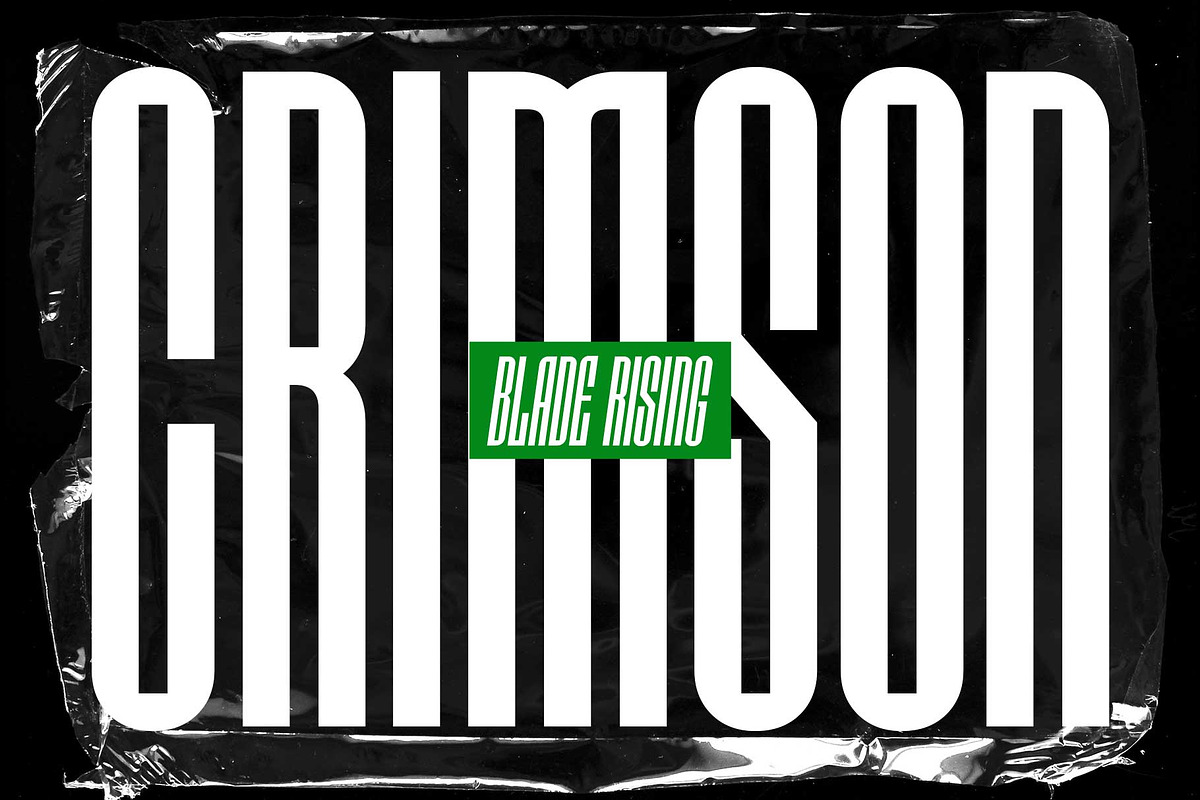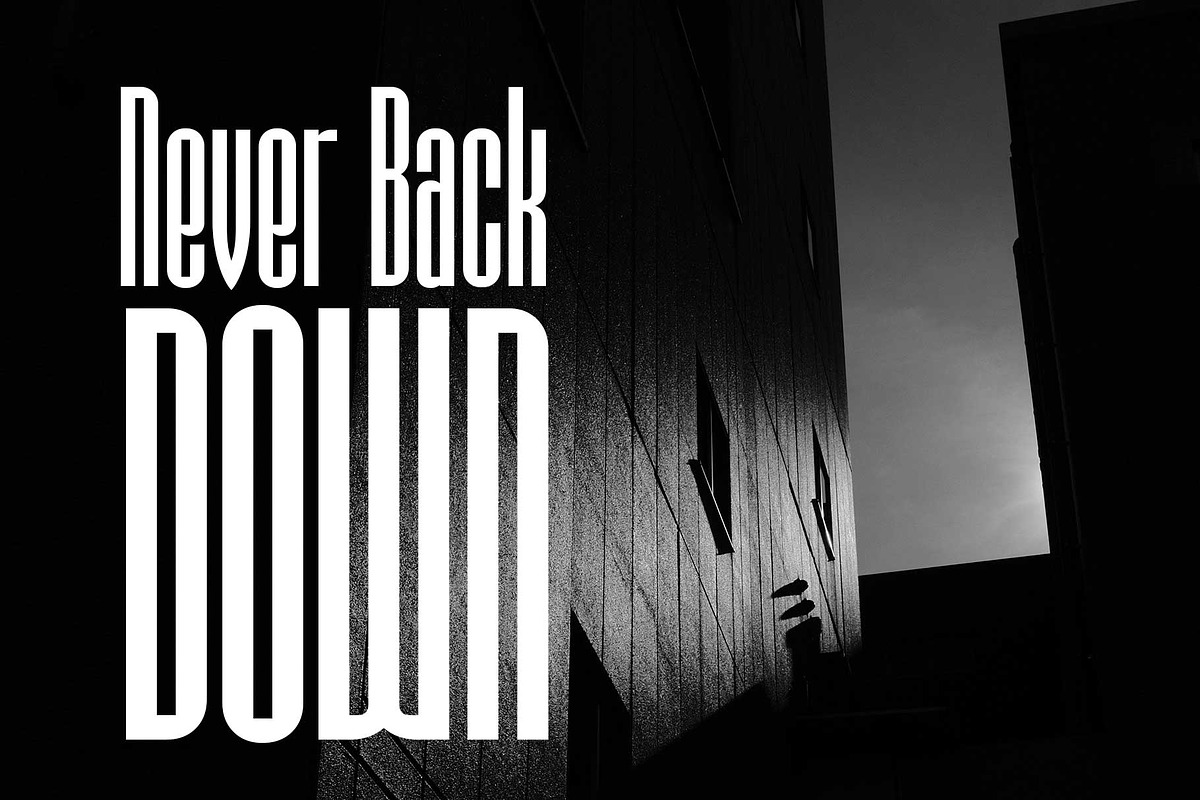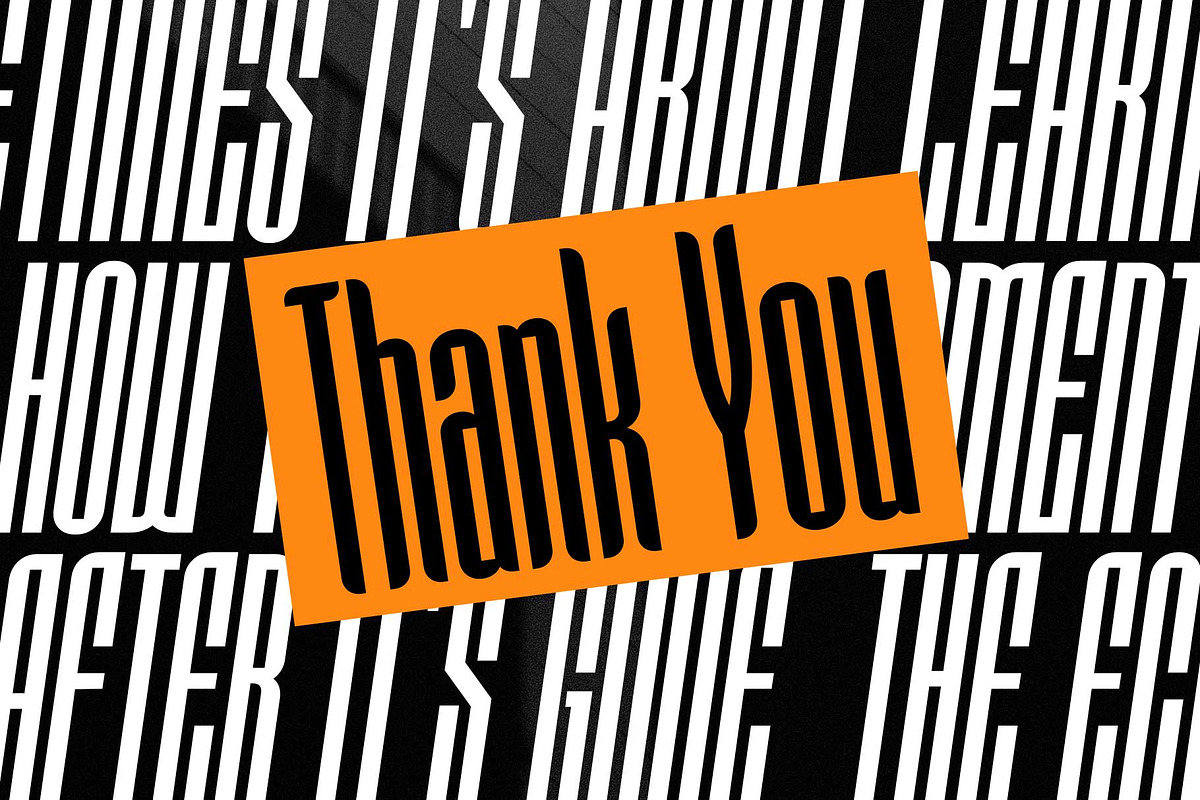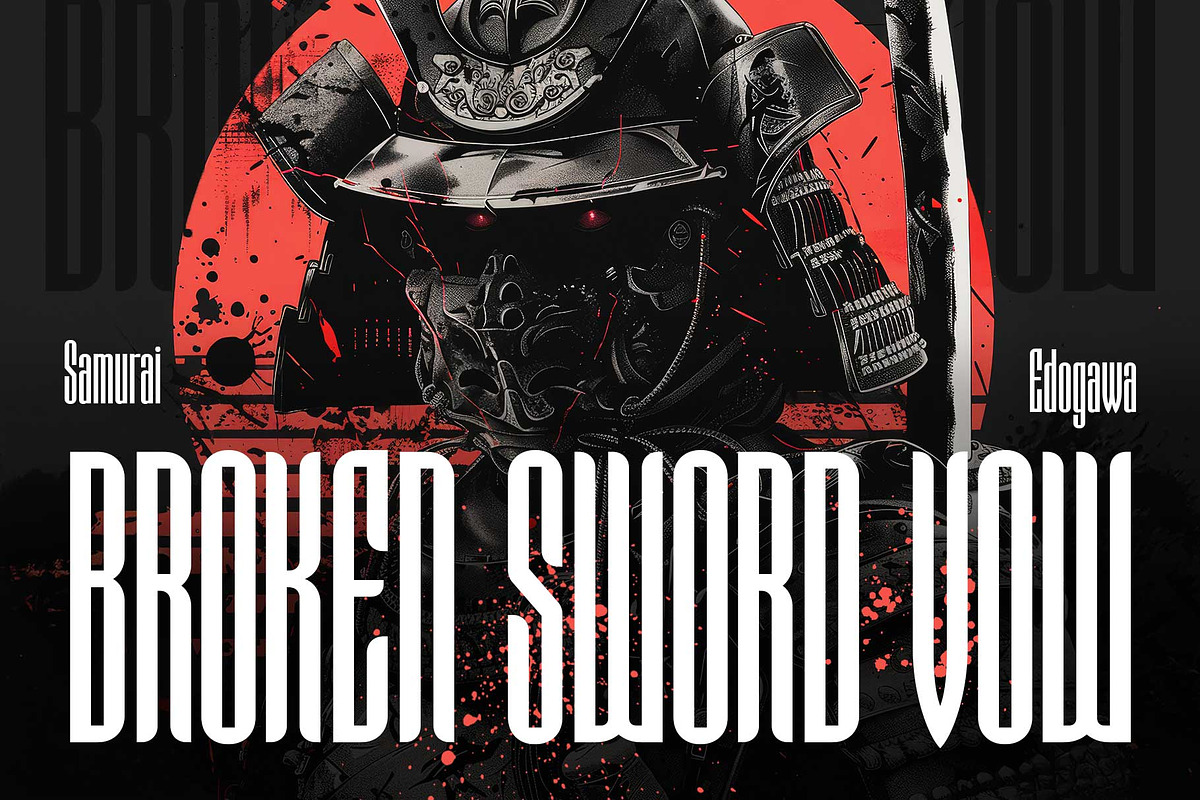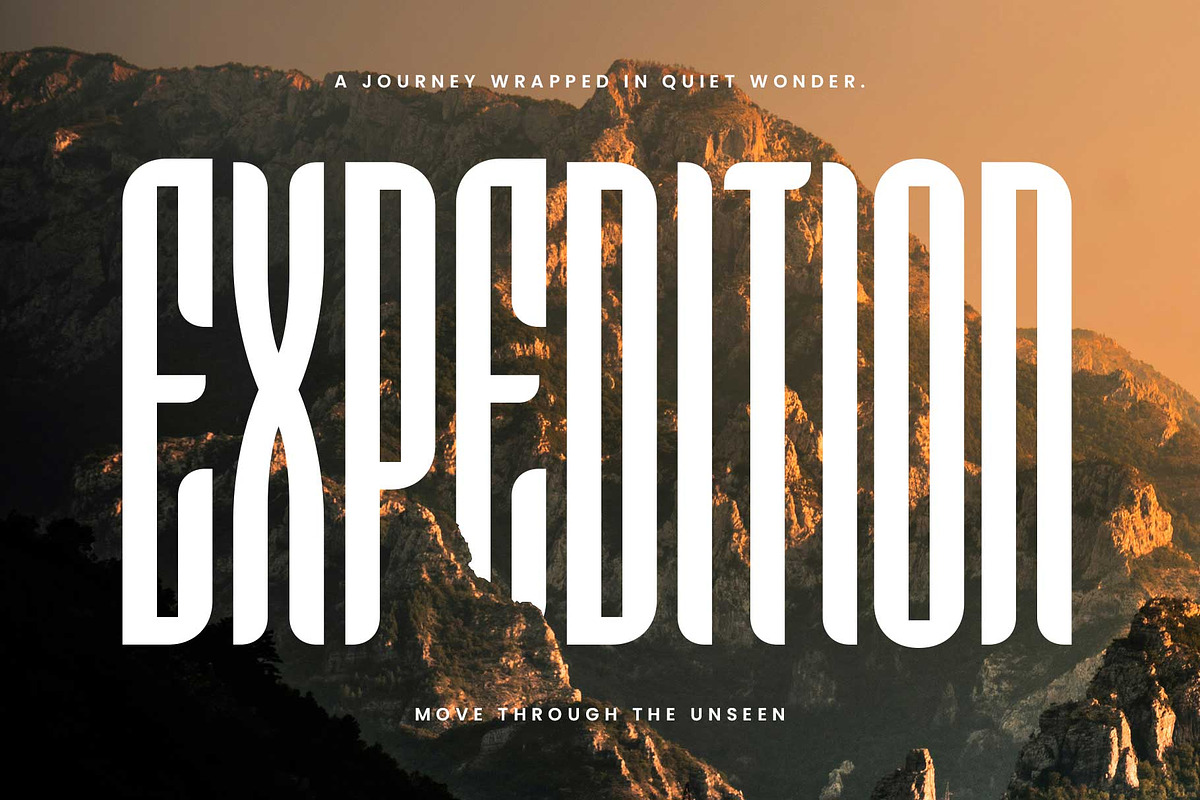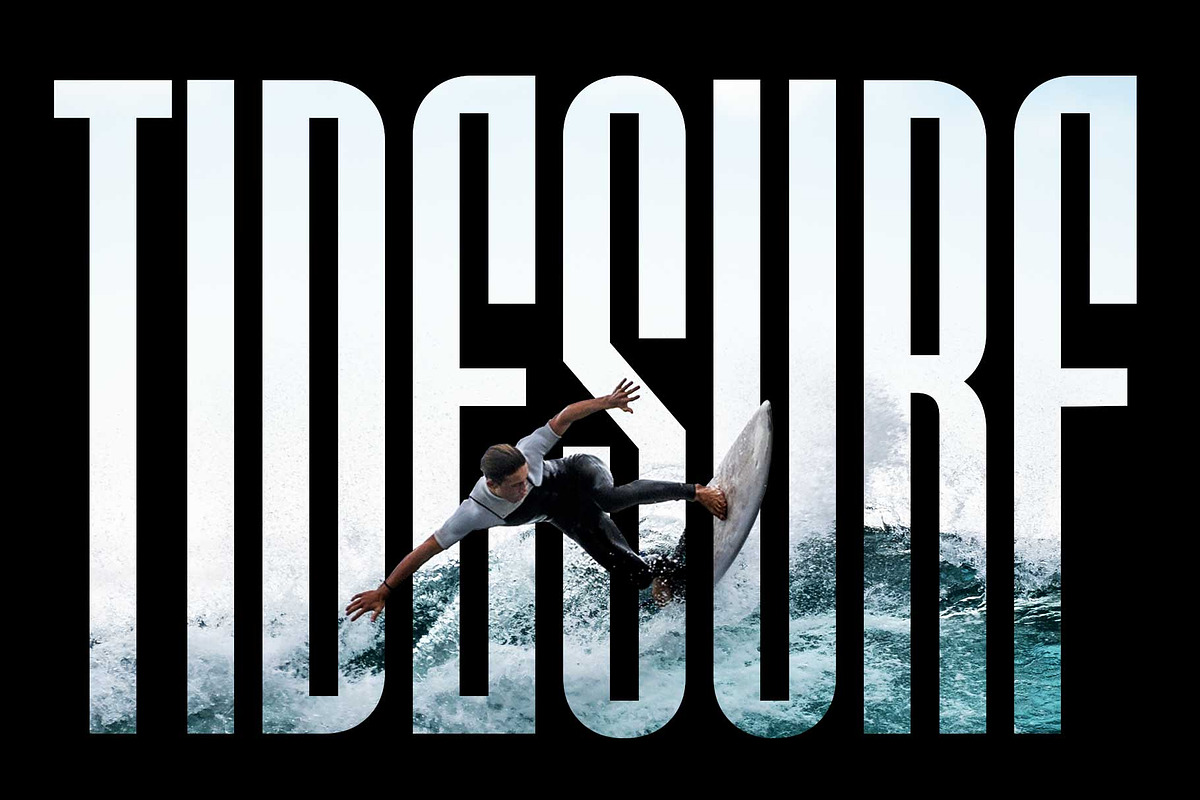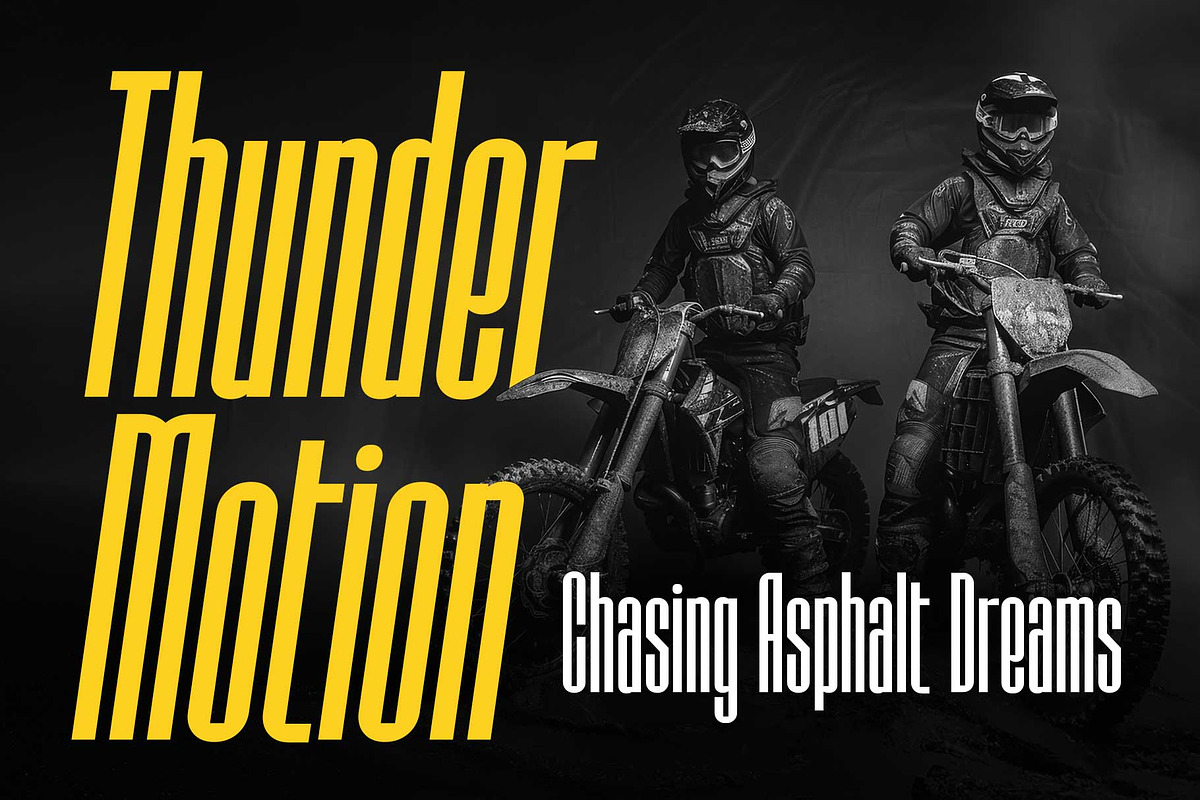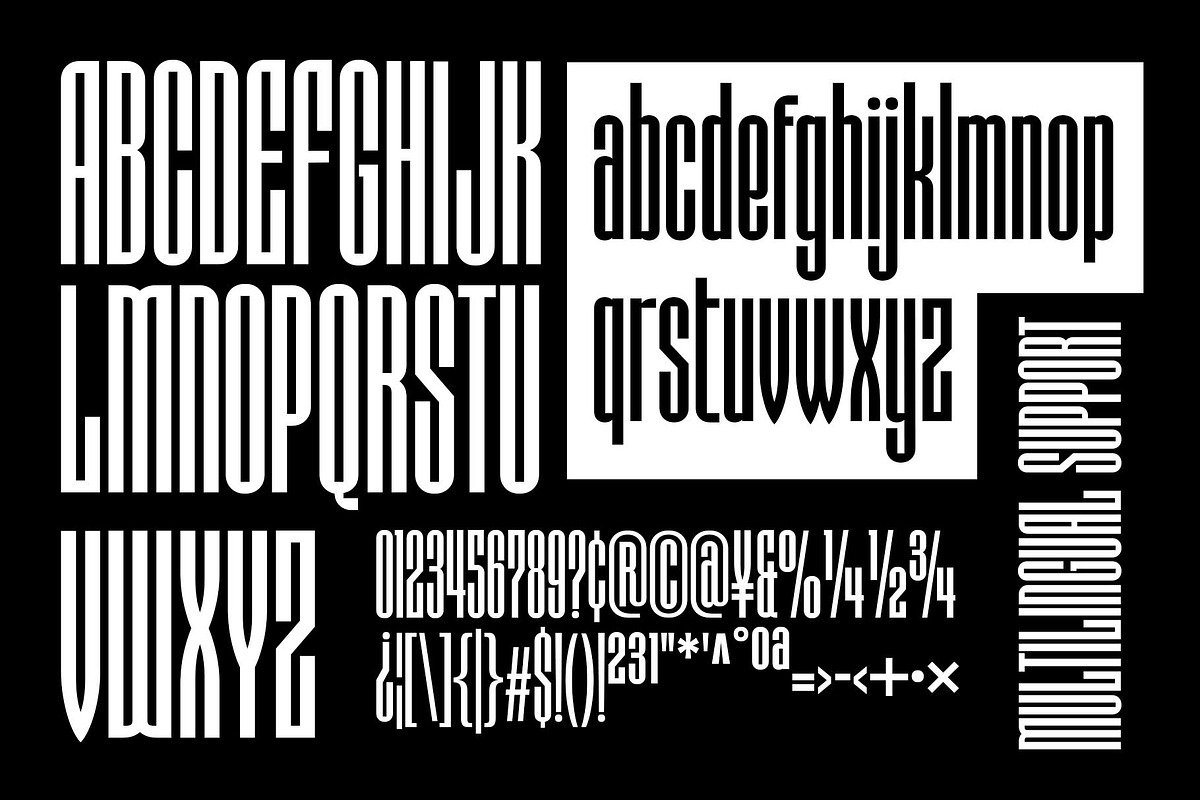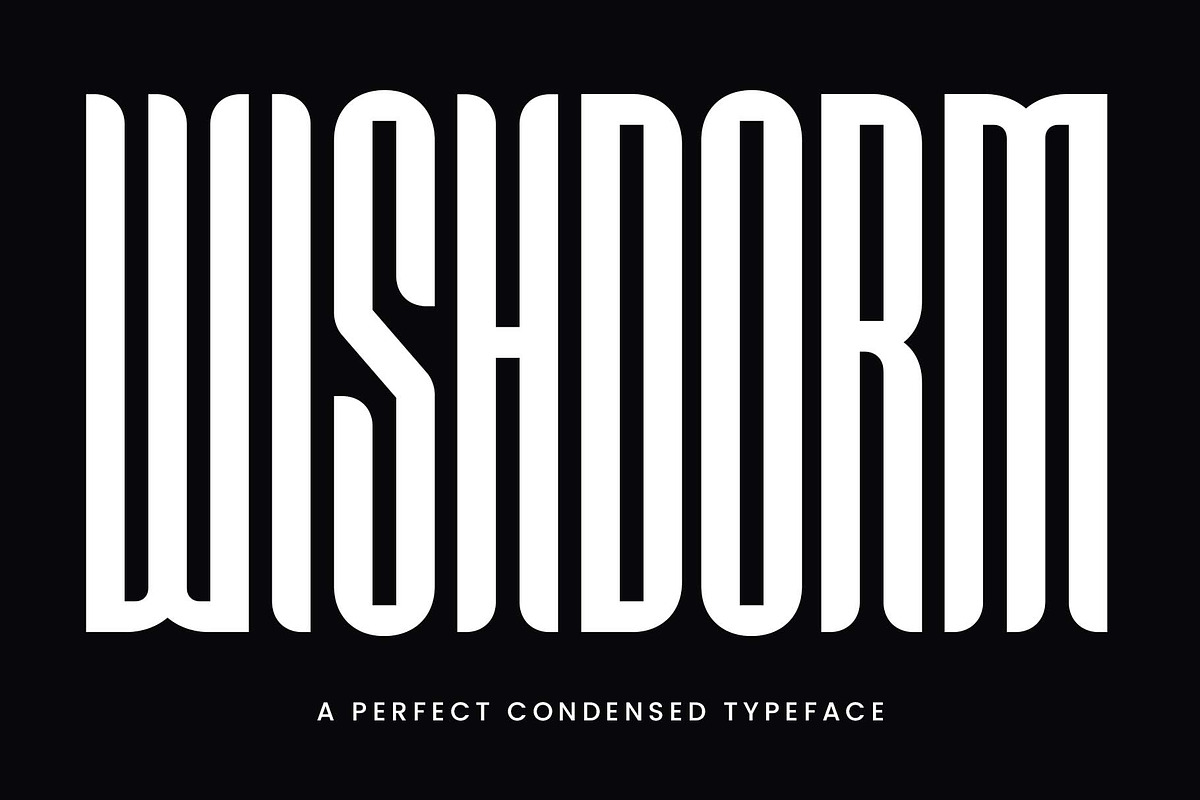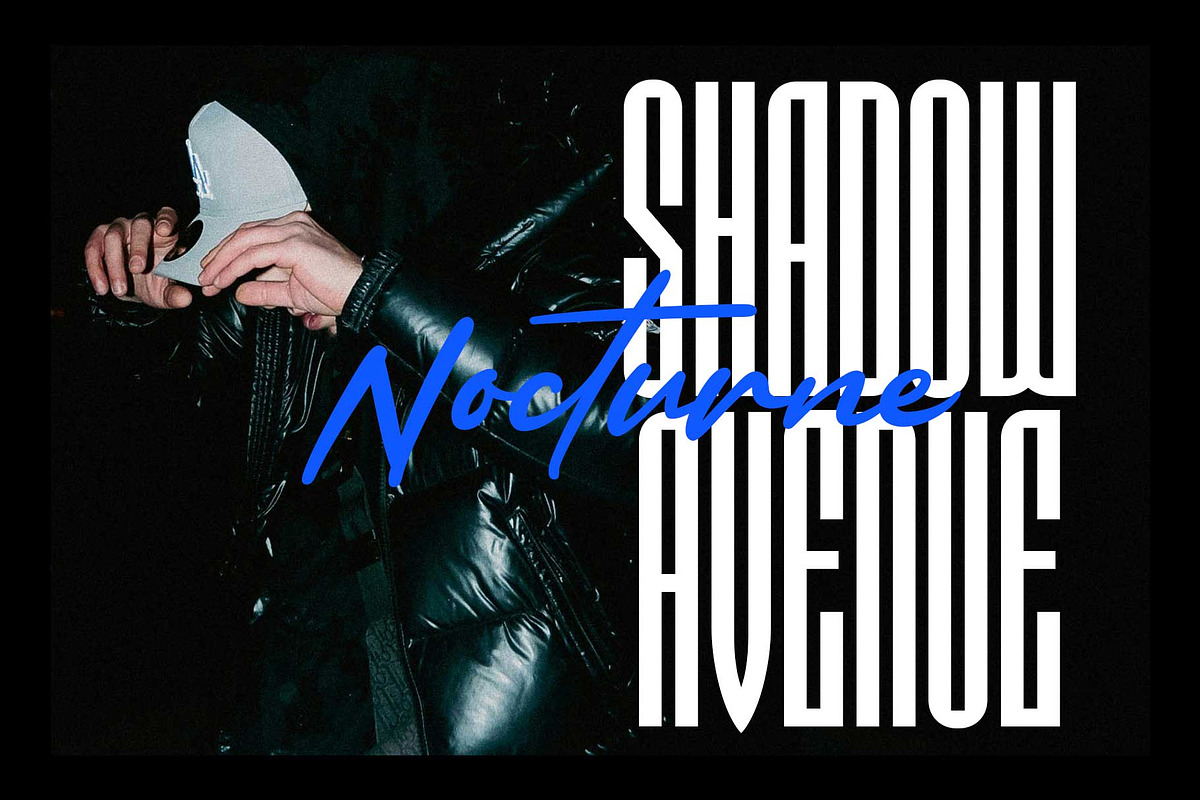
Ultra Condensed - Wishdorm
Wishdorm is an ultra-condensed display font with authentic character, available in three distinct styles — Normal, Curvy, and Slanted. Its versatility makes it perfect for sports, futuristic, or minimalist themes.
With its tall and confident letterforms, Wishdorm gives you the freedom to play and explore your design space — create bold headlines, mask it with images, mix it with other fonts, or turn it into a striking typographic background.
It also comes with ligatures and alternates to make your design stand out with a unique and personal touch.
- Stylistic alternates